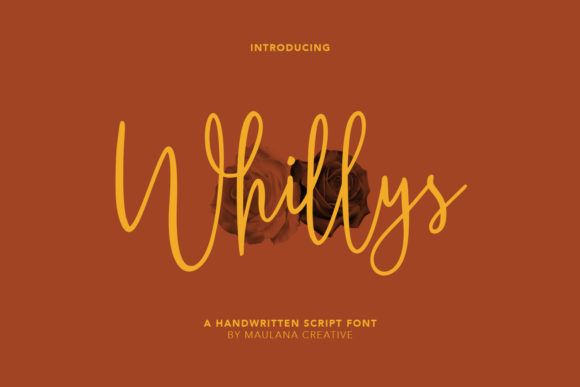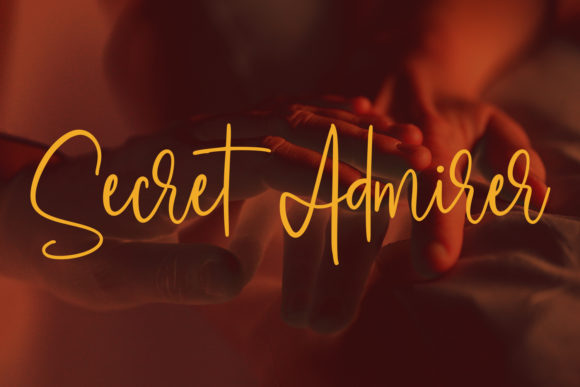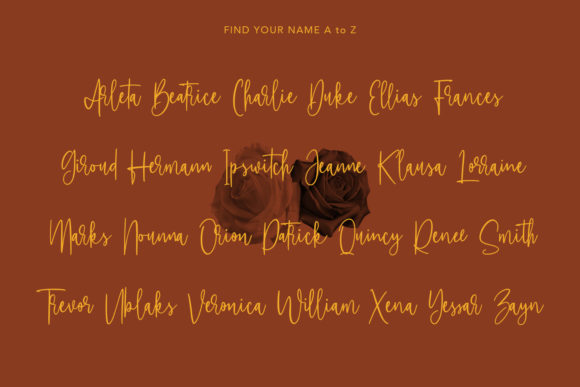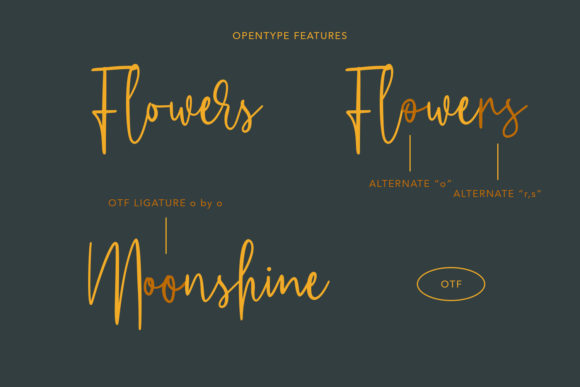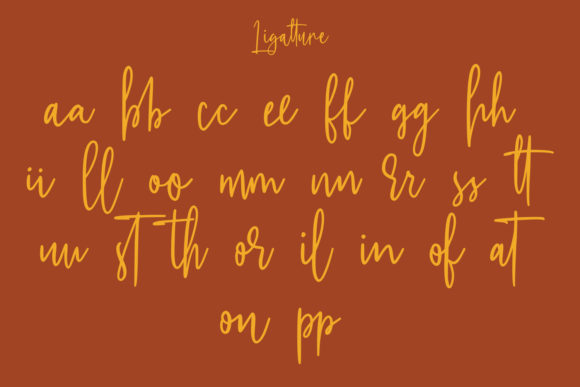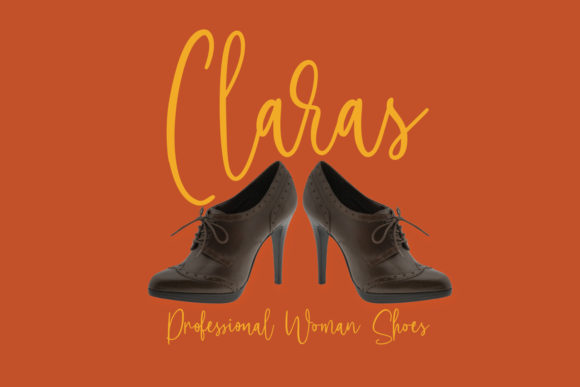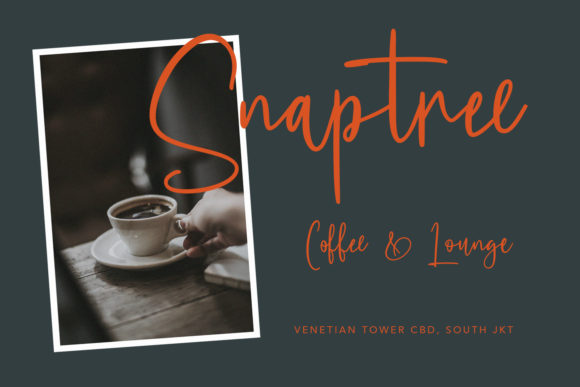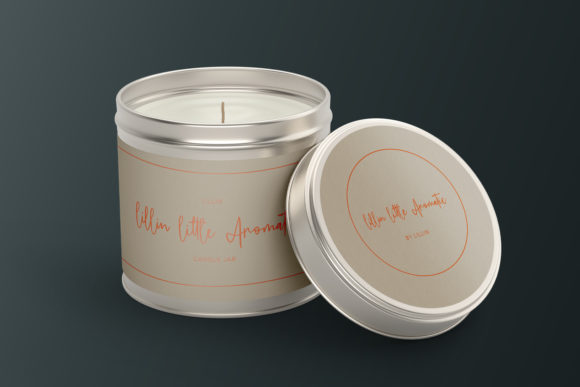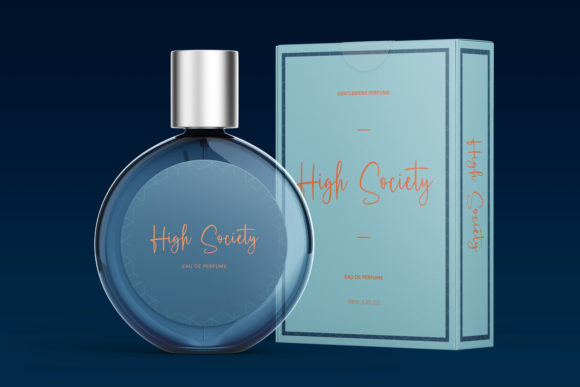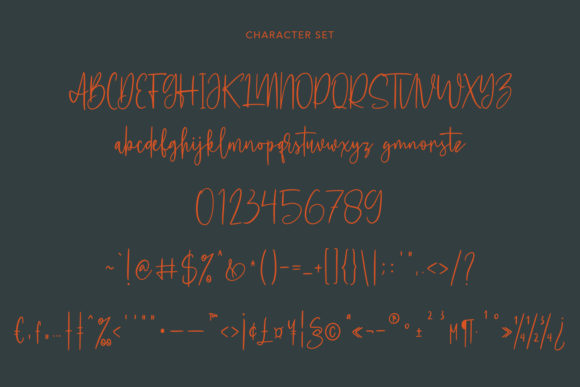
Whillys Font
About Whillys Font
Whillys is an enchanting handwritten font. This versatile script font has a wide spectrum of applications ranging from greeting cards to headlines and is guaranteed to add a romantic feel to your next project.